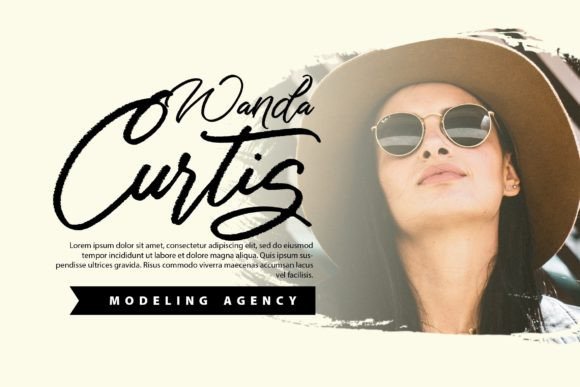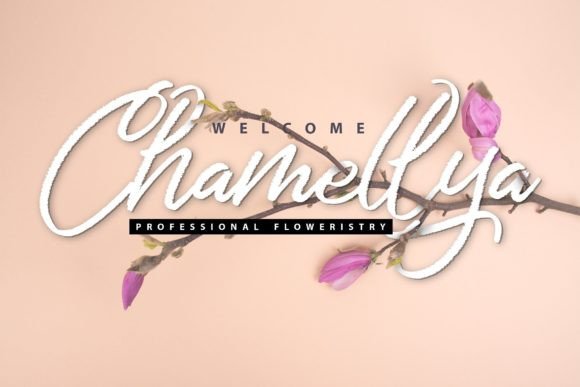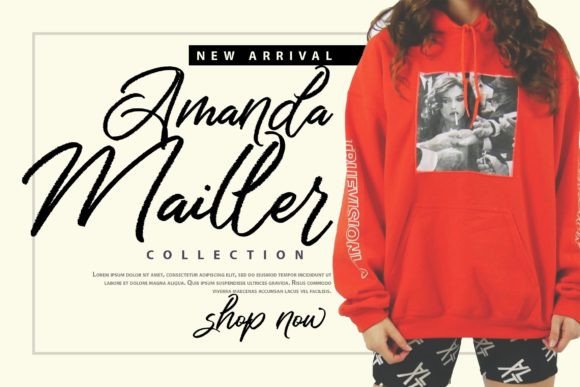
Introduction to Causting Font
Causting is a handwritten script font that looks and feels like it was written on a marker board.
Perfect for greeting cards, invitations, and motivational quotes, this font should help you express all of your best messages This font is PUA encoded which means you can access all of the amazing glyphs and ligatures with ease.
Causting Font offers exceptional quality and versatility, making it a valuable addition to your design toolkit. Whether you’re creating for personal projects or commercial use, Causting Font delivers professional results.